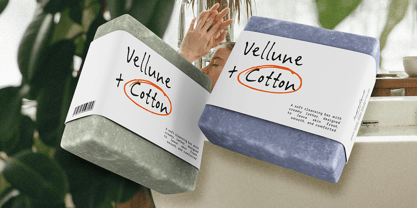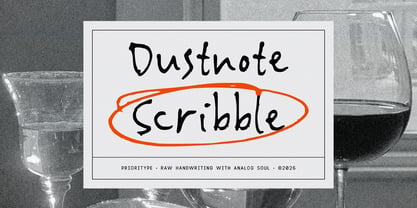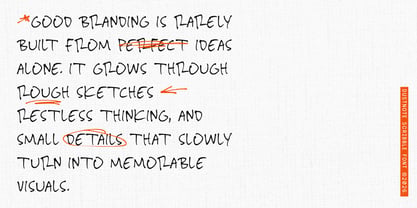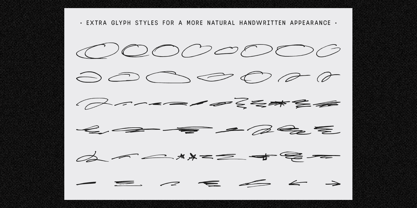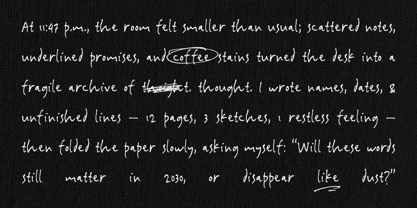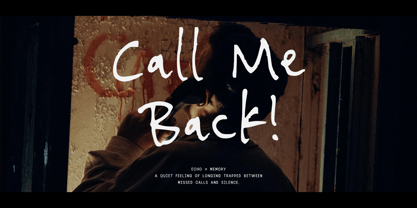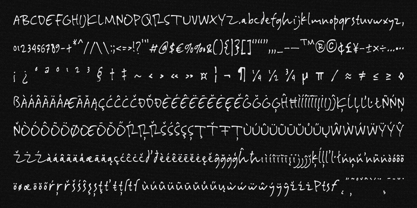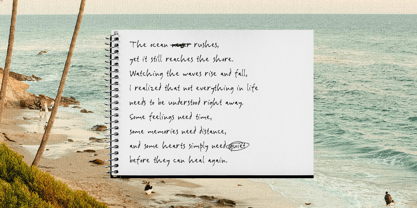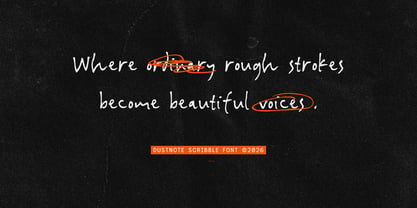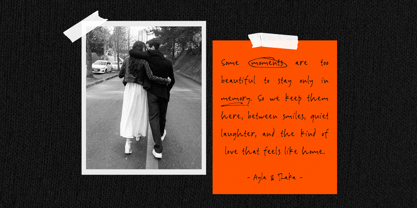
Dustnote Scribble
by Prioritype
The Dustnote Scribble Font Family and published by Prioritype. Dustnote Scribble contains 2 styles and family package options.
Dustnote Scribble is a natural handwritten font inspired by authentic pen sketches and spontaneous handwriting. With organic strokes and expressive imperfections, this typeface captures the raw beauty of notes, doodles, and personal writing. Perfect for branding, posters, journals, social media, packaging, and creative projects that need a warm and human touch.